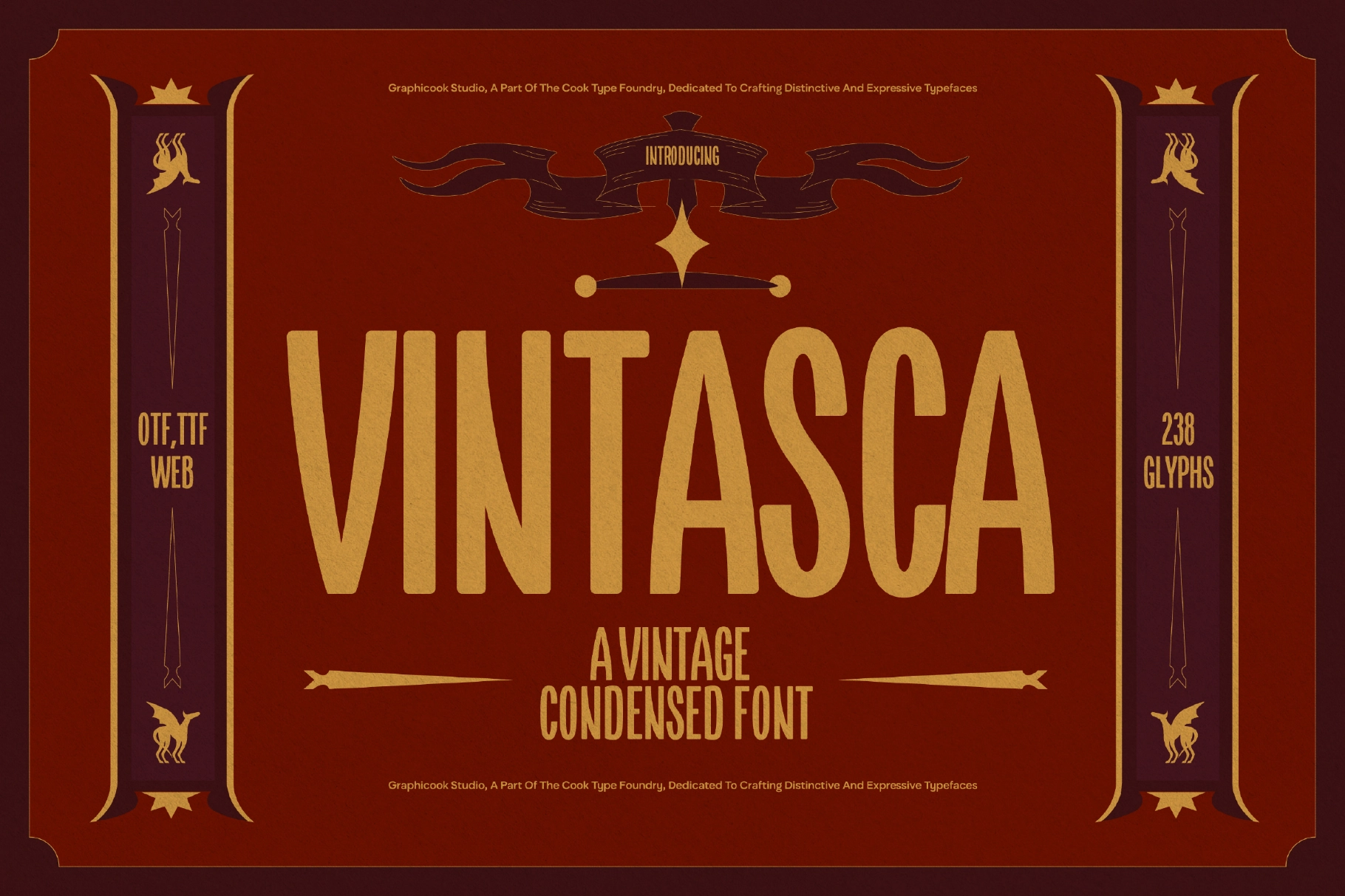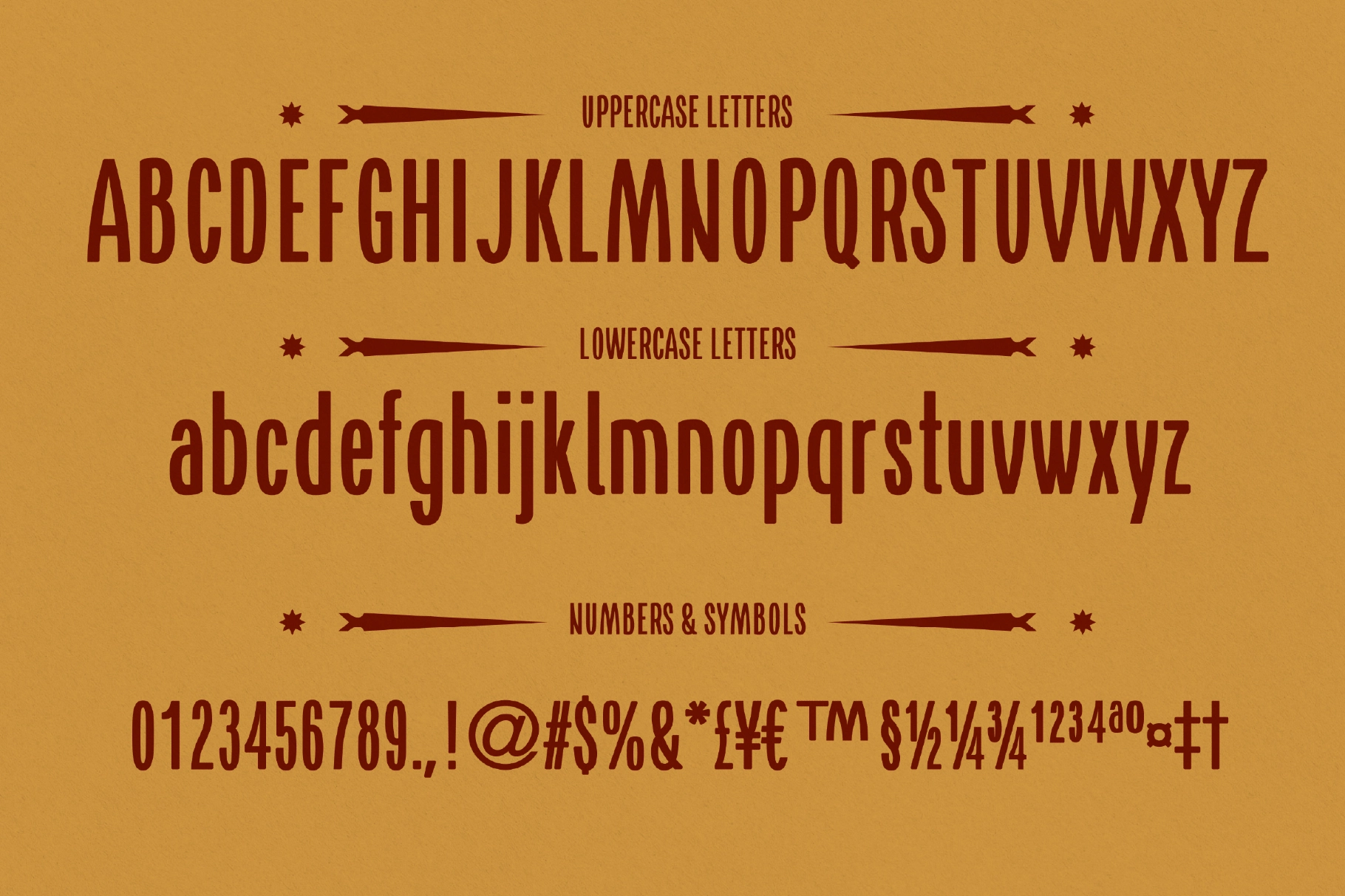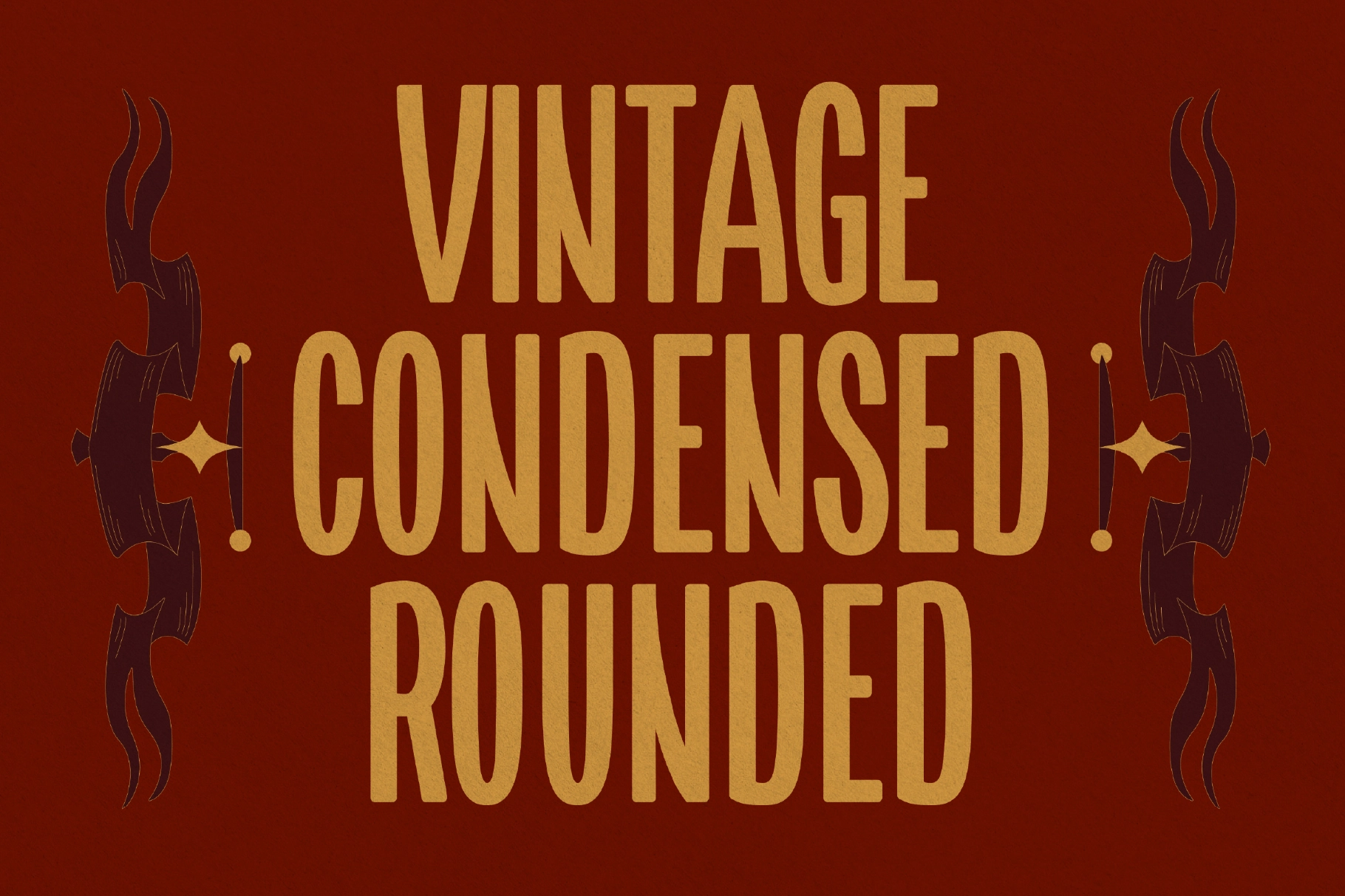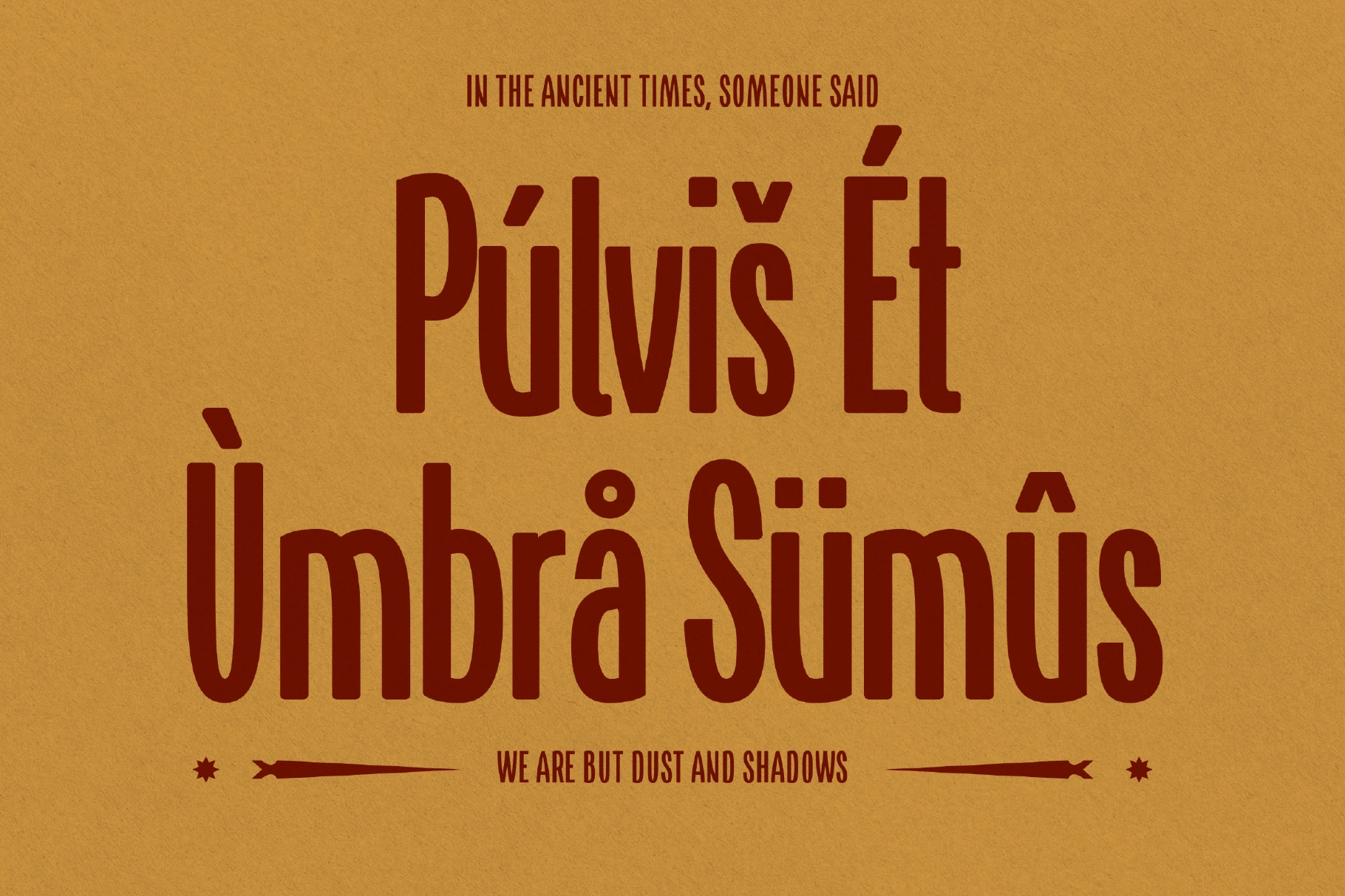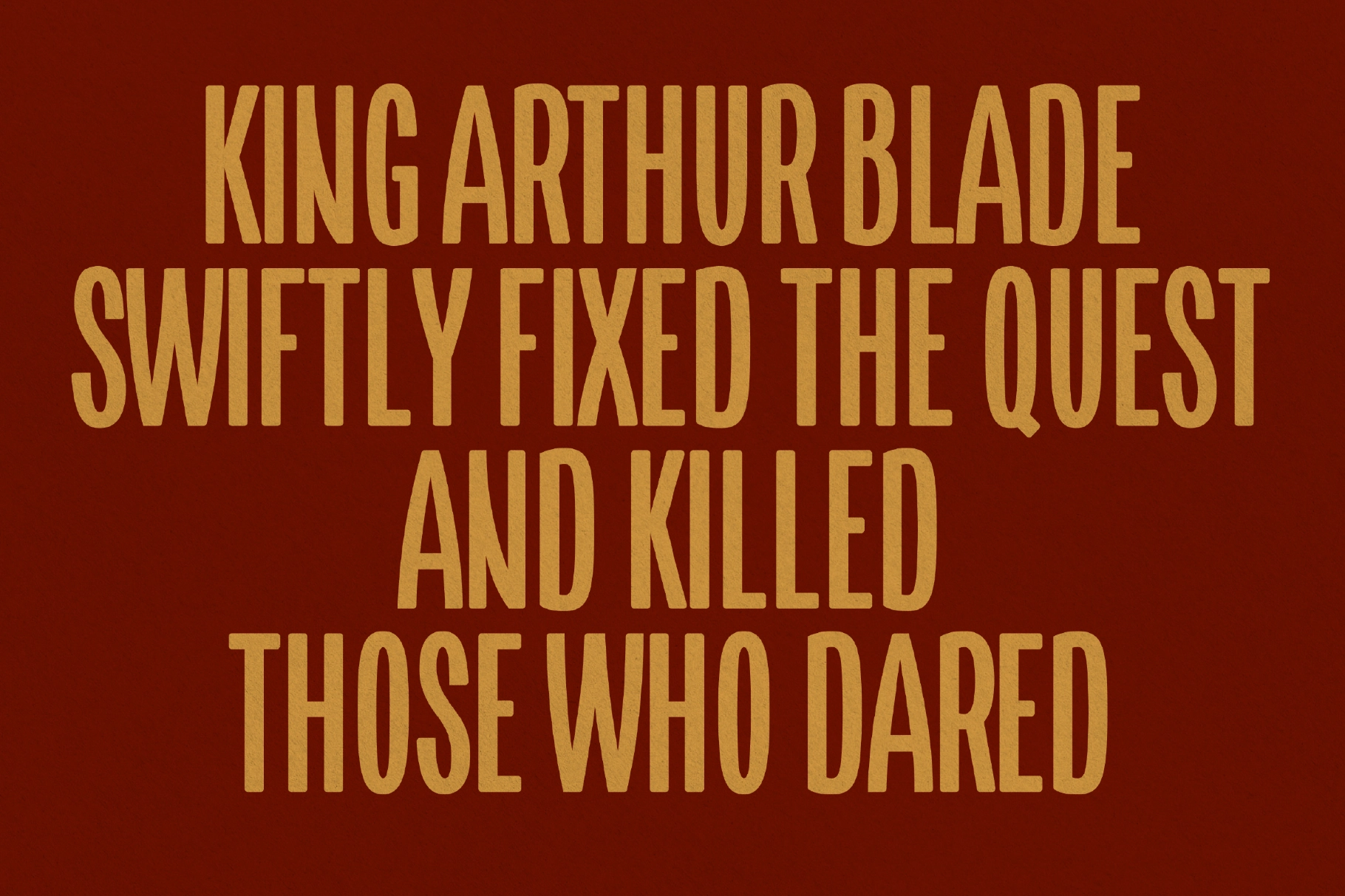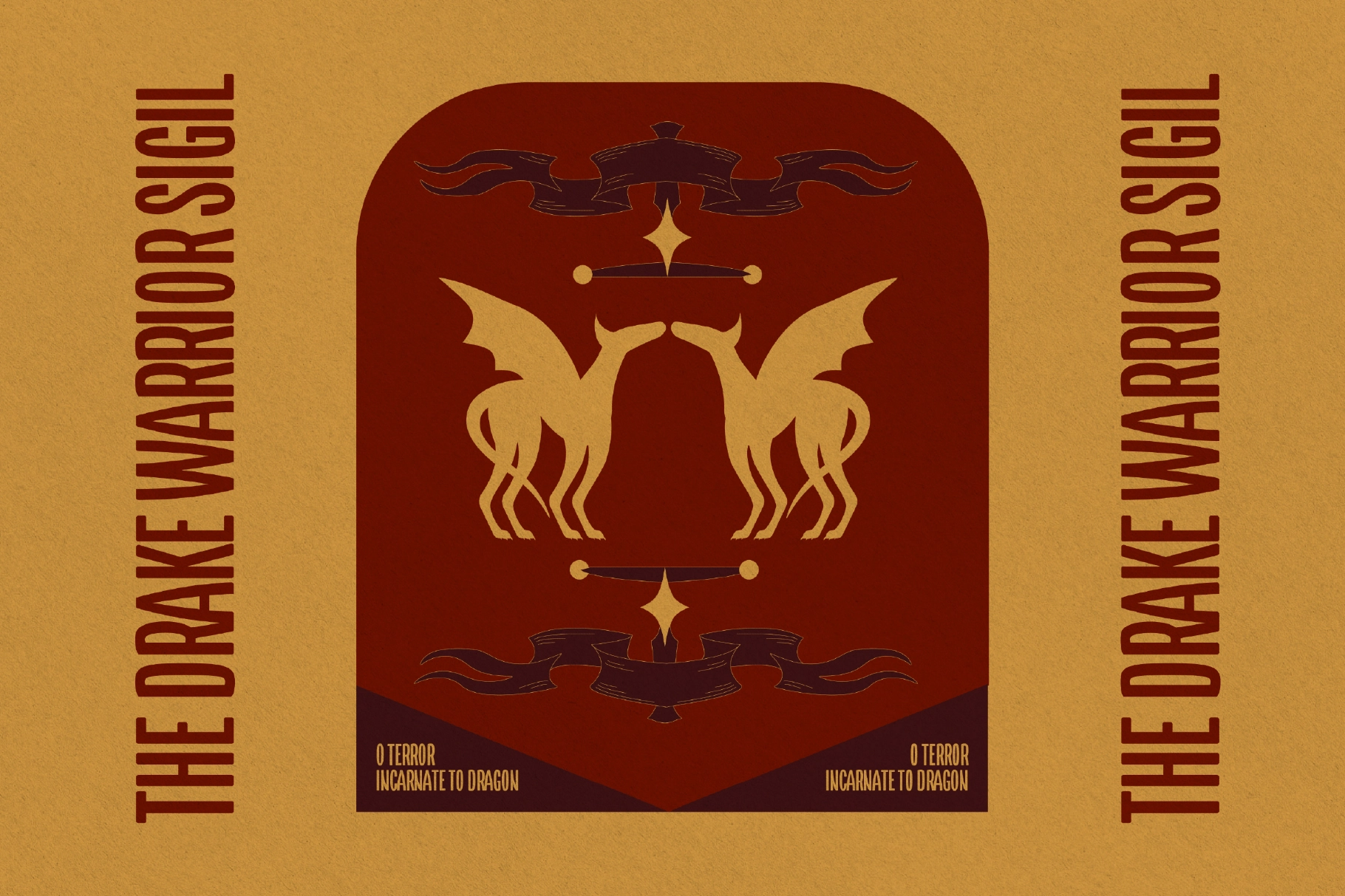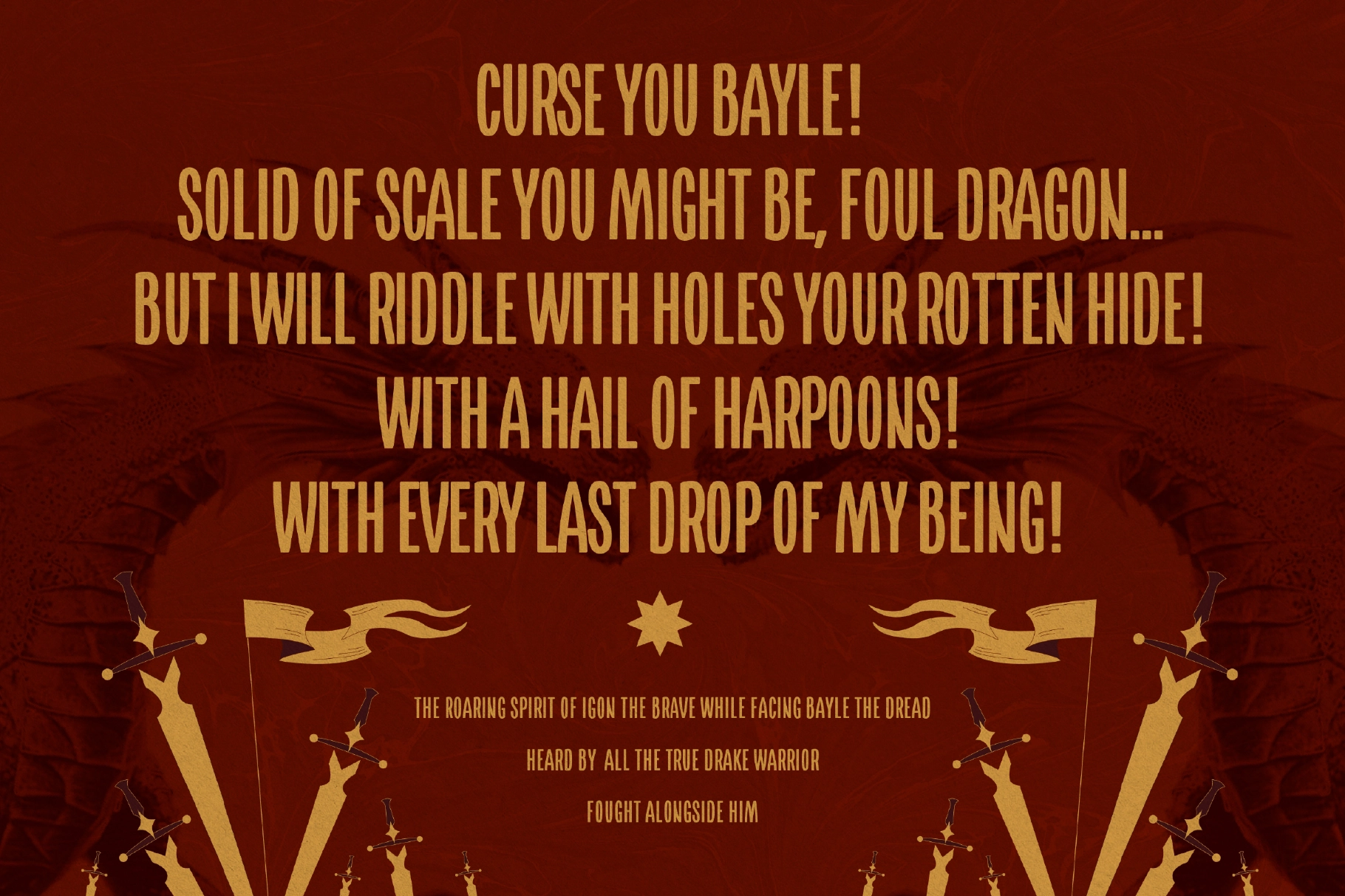
Vintasca Font
Vintasca is a vintage condensed font inspired by medieval themes, featuring a distinctive typeface. Ideal for vintage magazines, classic movie posters, or heritage product branding.